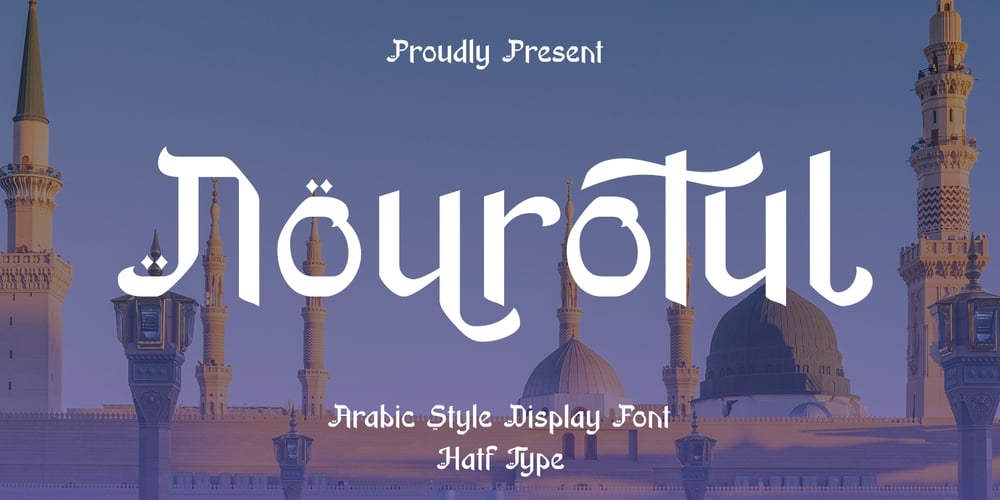
Nourotul
Nourotul font
Nourotul Font Family was designed by Asep Rendi and published by Hatftype. Nourotul contains 1 styles and family package options. Immerse in the captivating fusion of past and present with Nourotul, a precision-engineered Arabic display font. Reflecting the finesse of Arabic calligraphy, Nourotul exudes an exclusive charm, effortlessly blending the elegant, fluid Arabic alphabets with a contemporary edge. Every artistically crafted stroke highlights the intricate allure and royal grace of the Arabic script, naturally enabling ornamental details that amplify its striking visual interest. Nested within the characteristic curves and junctions of Arabic artistry, Nourotul conjures an enchanting visual spectacle, suffusing your text with an enticingly exotic ambiance. Each singular letter unfurls as a work of art, meticulously carved to depict the inherent beauty of each symbol. If you’re a designer aspiring to infuse an Arabic feel into your creations, Nourotul, with its exquisitely designed style, offers a spellbinding choice. It presents a unique visual lexicon, capable of morphing ordinary design into something extraordinary, instilling it with a remarkably enchanting Arabic elegance.